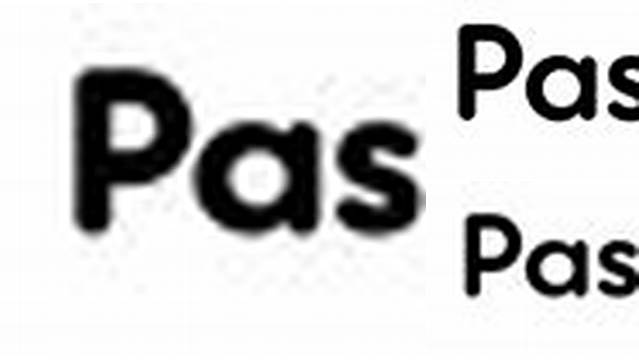
1. Understanding the Pastrami Extra Bold Font
Alright, before we jump into the download, let's get to know this font a little better. The Pastrami Extra Bold font is a display typeface that screams for attention. It's got that thick, heavy, and unapologetically bold look that's perfect for headlines, titles, and any design element where you want to make a statement. Think of it as the typography equivalent of a delicious, overstuffed pastrami sandwich – it's hearty, it's flavorful, and it's impossible to ignore. The font's design often features clean lines and a strong presence, making it incredibly versatile. You can use it in a wide range of projects, from posters and flyers to websites and social media graphics. Its readability, despite its boldness, is generally quite good, especially when used at larger sizes. This makes it ideal for grabbing the viewer's attention instantly. When selecting a font for a project, it's essential to consider how well it matches the overall tone and message you want to convey. The Pastrami Extra Bold font does this by adding a touch of modern style. It's a fantastic choice if you want your designs to stand out and be easily recognized.
Furthermore, its bold nature makes it suitable for different design styles, from minimalist to more complex layouts. The key is to understand how to use it effectively. Experiment with different font sizes and weights to find the perfect balance for your specific project. Also, remember to consider the color palette and imagery you're using. The Pastrami Extra Bold font works exceptionally well with bold colors and contrasting backgrounds, which enhance its visual impact. Lastly, make sure that you understand the licensing terms associated with the font, especially if you plan on using it for commercial purposes. While we’re focusing on free downloads here, always be mindful of the legal aspects of using a font to avoid any copyright issues. With proper knowledge, you can create stunning designs that look professional and will enhance the visibility of your work.